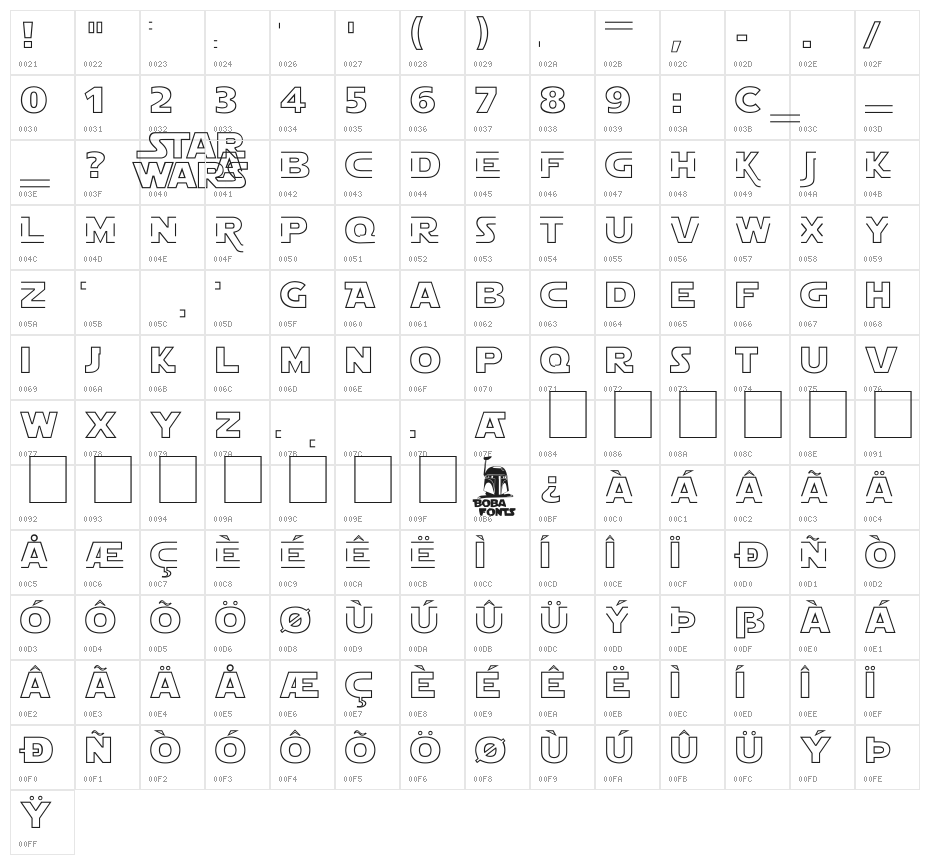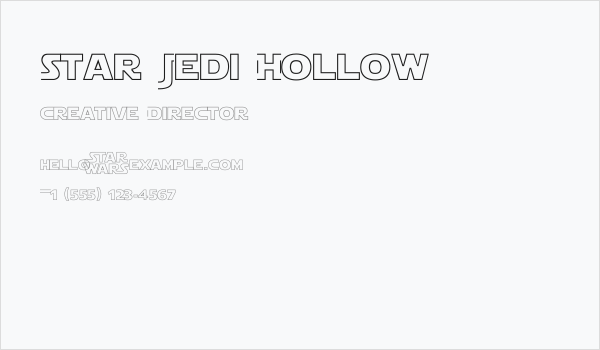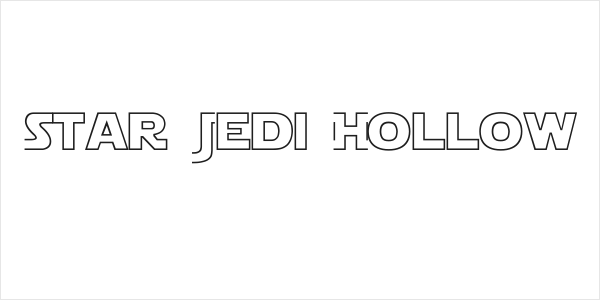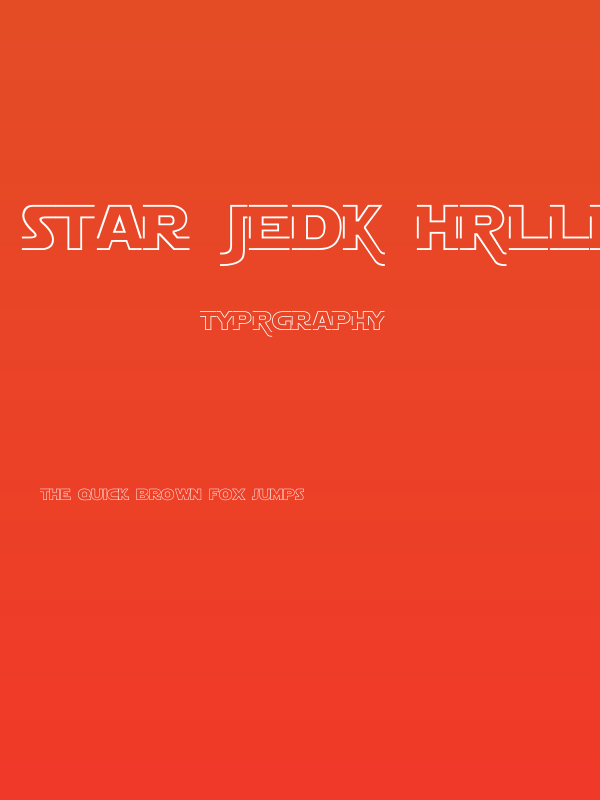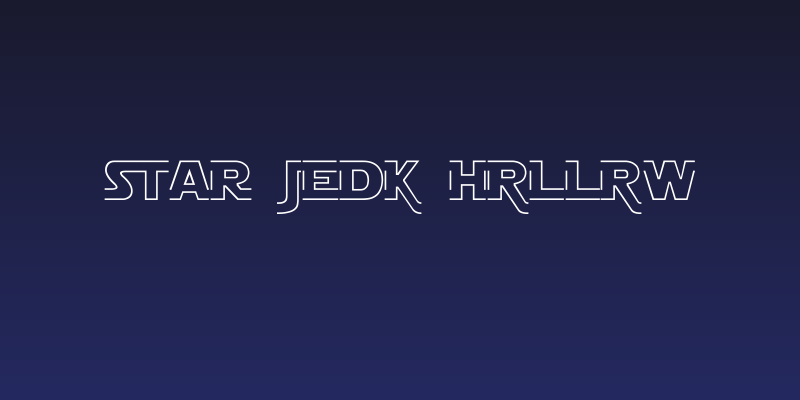
Star Jedi Hollow Font
Star Jedi Hollow Description
This font features a futuristic and geometric design, characterized by its hollow, outlined letterforms. The uppercase letters exhibit a bold and structured appearance with sharp angles and straight lines, creating a sense of movement and speed. The numbers and special characters maintain this consistent style, ensuring a cohesive look across all glyphs. The font's design is reminiscent of science fiction themes, making it ideal for projects that require a modern and dynamic aesthetic.
Proposed ProjectsIdeal for sci-fi themed posters, movie titles, video game graphics, and branding for tech companies.